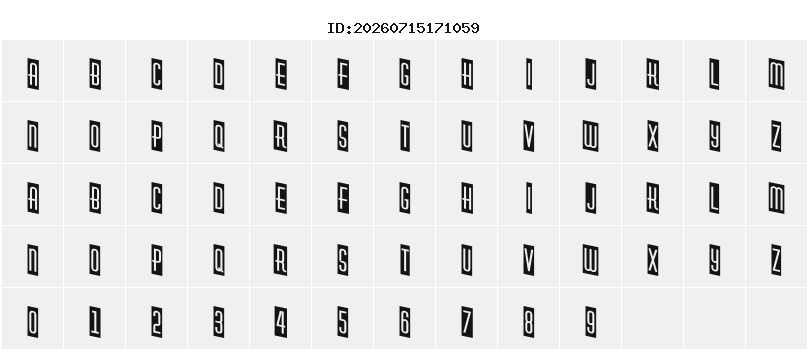
• Font Name: a_HuxleyCmDn
a_HuxleyCmDn.ttf is a modern, elegant sans-serif font designed for ultimate readability and visual harmony. Perfect for branding, headlines, web design, and print materials.